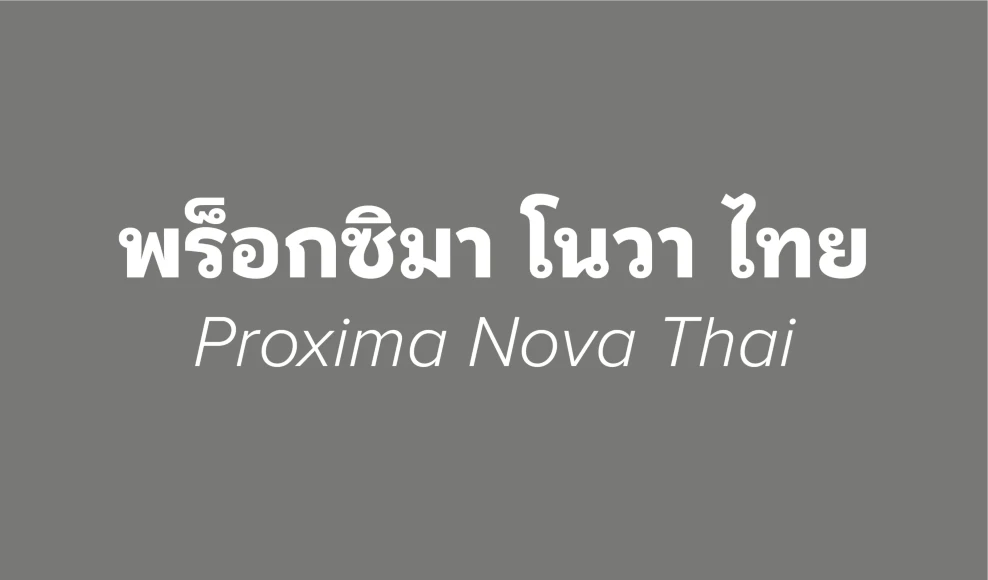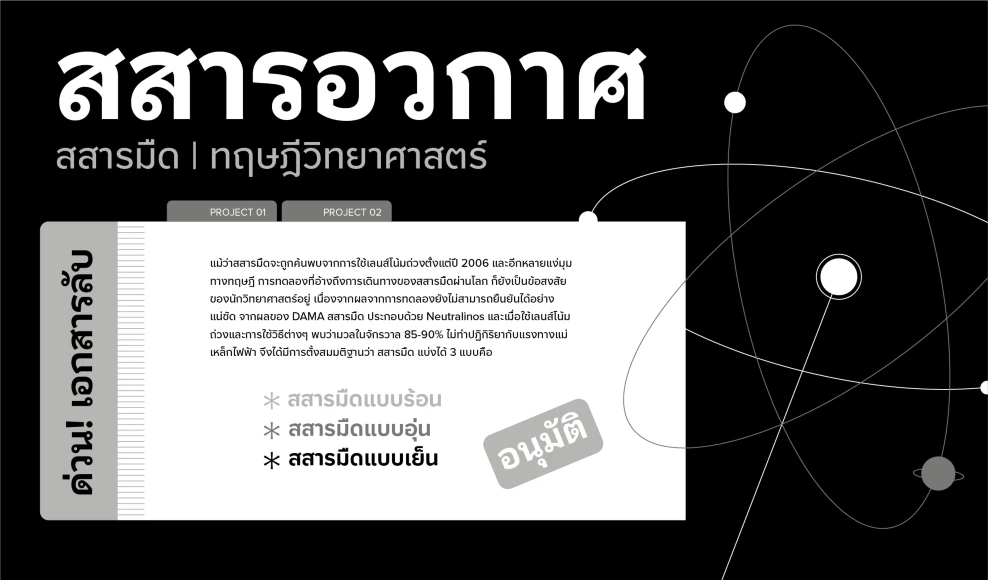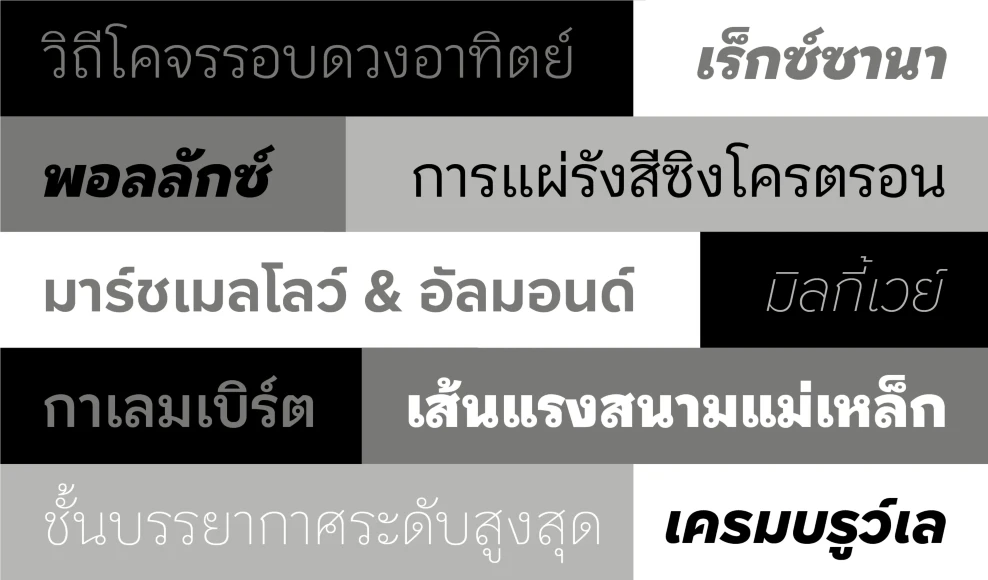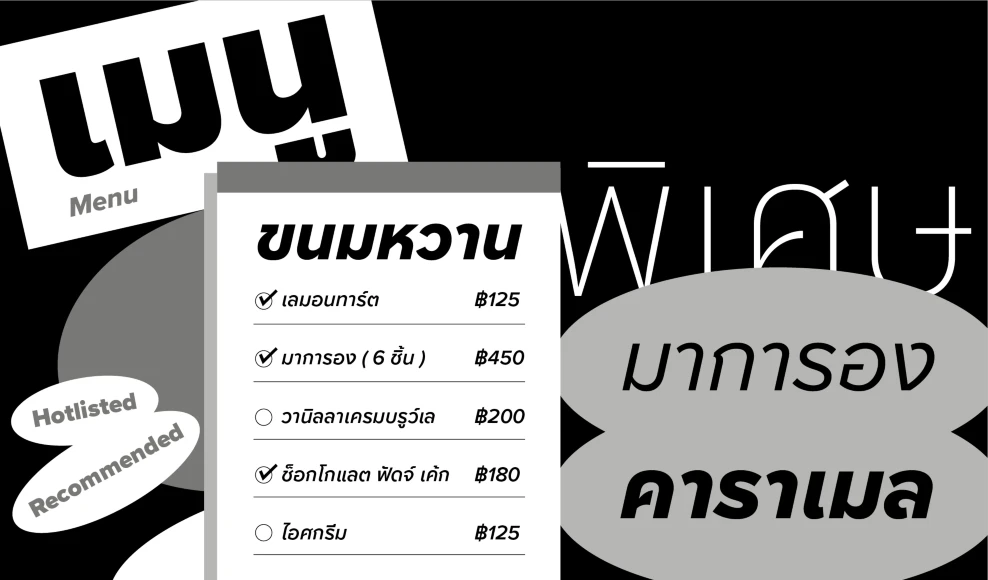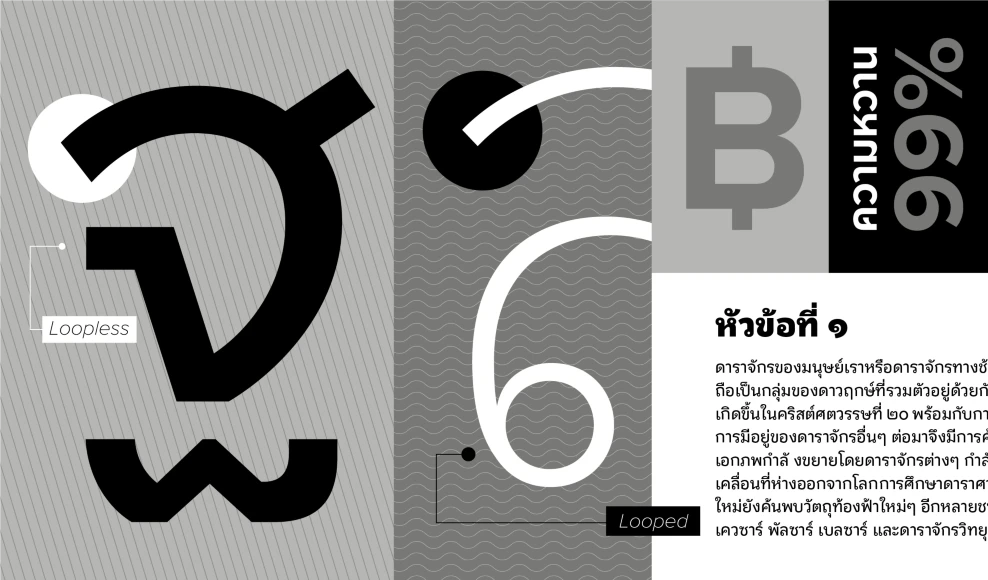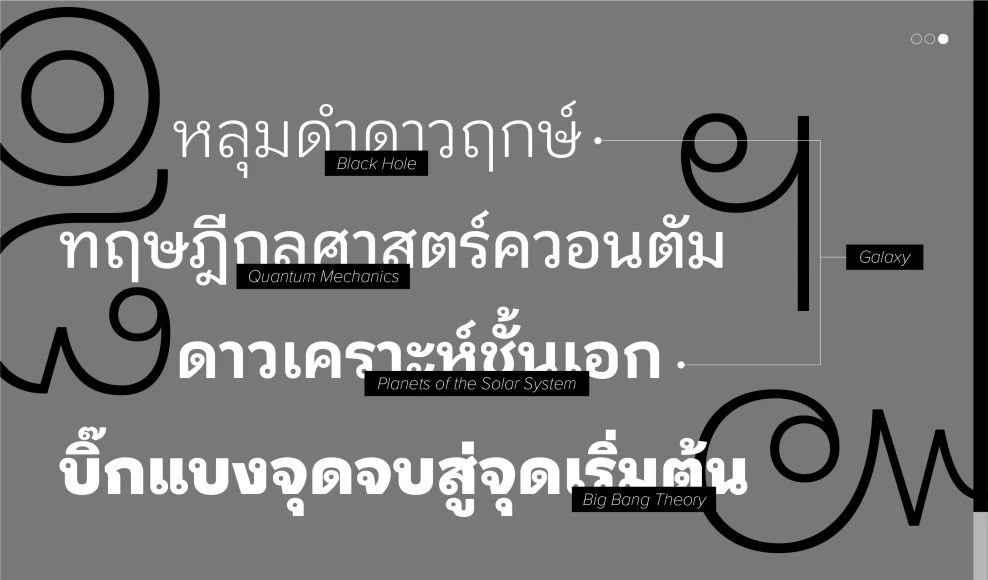
Proxima Nova Thai
From Mark Simonson Studio
Proxima Nova Thai (2024) was designed by Cadson Demak for Mark Simonson’s ever-popular Proxima Nova. Available in a practical loopless style for display settings and a traditional looped for text and UI, Proxima Nova Thai works seamlessly with the original Latin without losing the script’s texture or cultural significance. Featuring an extended Latin and Vietnamese character set in eight weights plus matching italics, this growing family of typefaces is set to become even more popular worldwide.
Designed by Mark Simonson & Cadson Demak